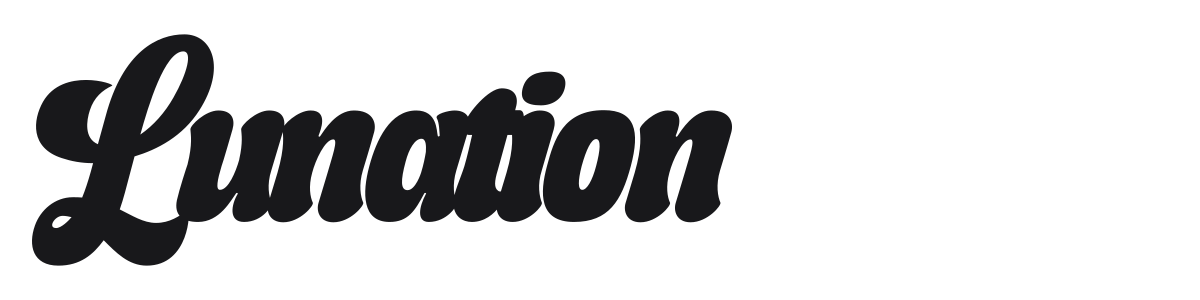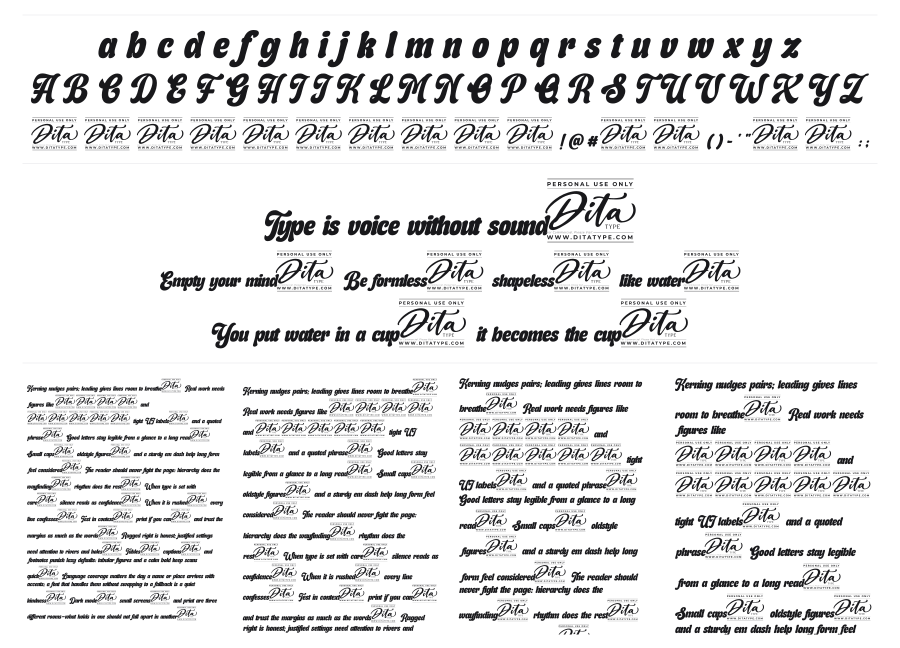
Lunation
Lunation is a heavy connected script with a bold, retro personality rooted in 1970s casual lettering. The thick rounded strokes and sharp rightward lean give it a sense of rolling momentum across the baseline. It carries a lot of energy at large sizes, making it a natural choice for logos, posters, and packaging that need attitude.